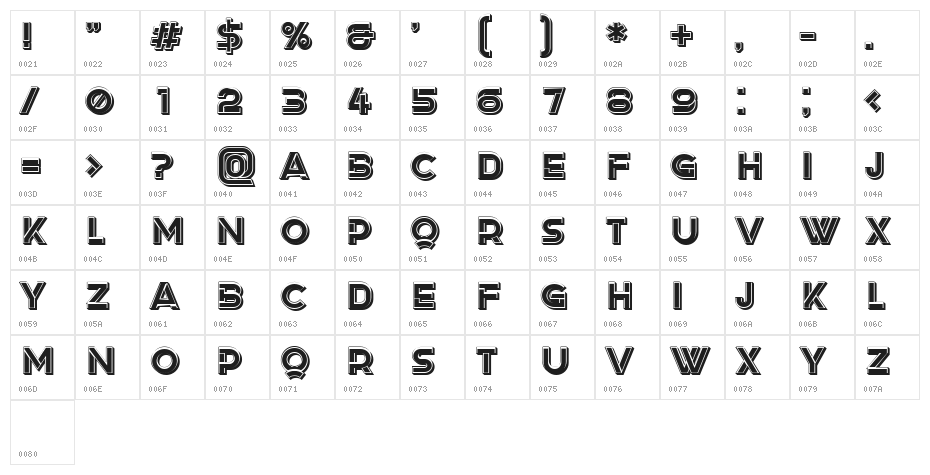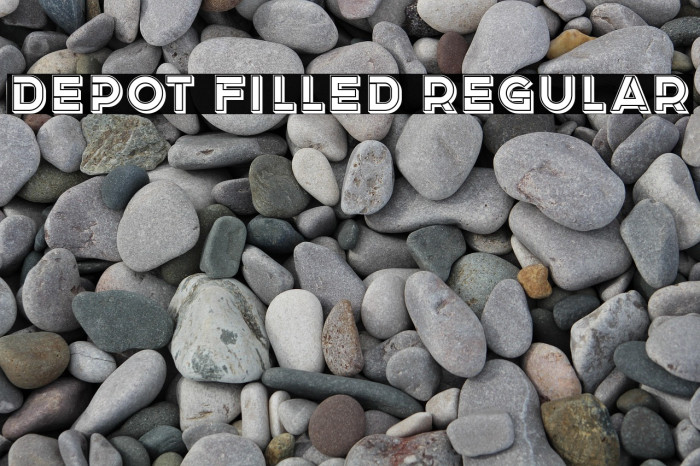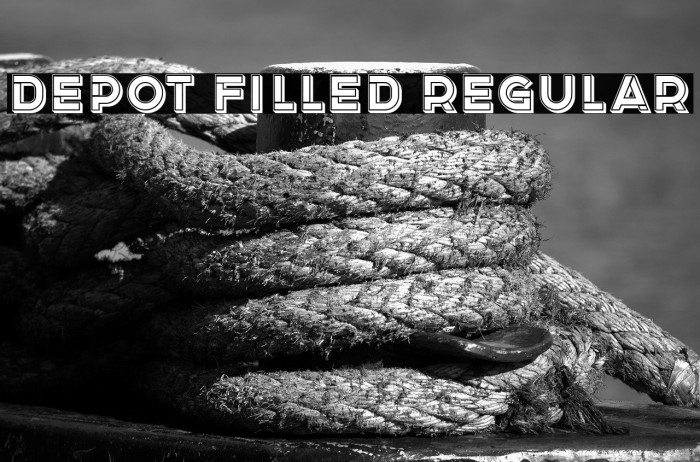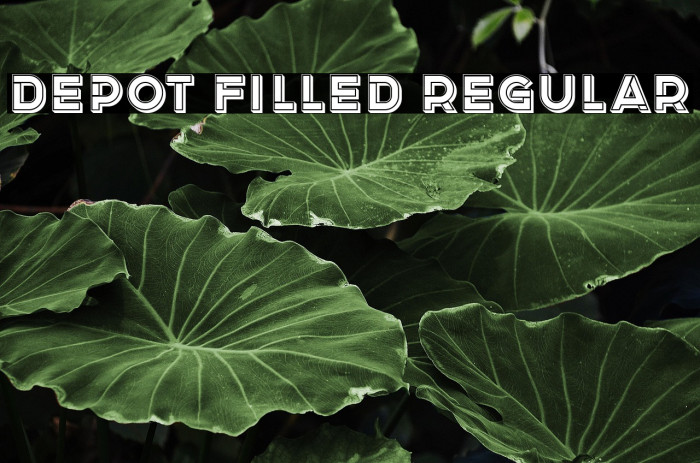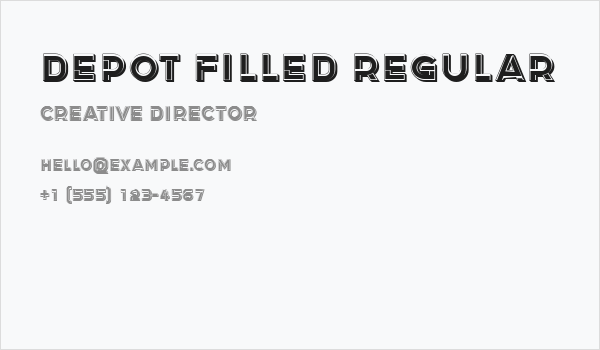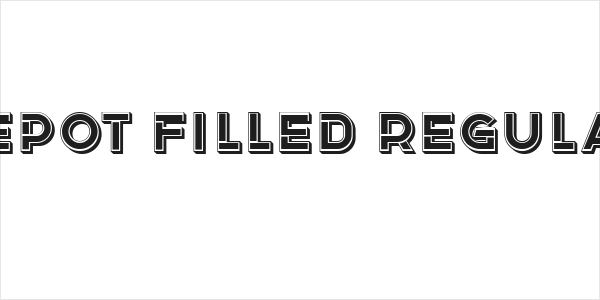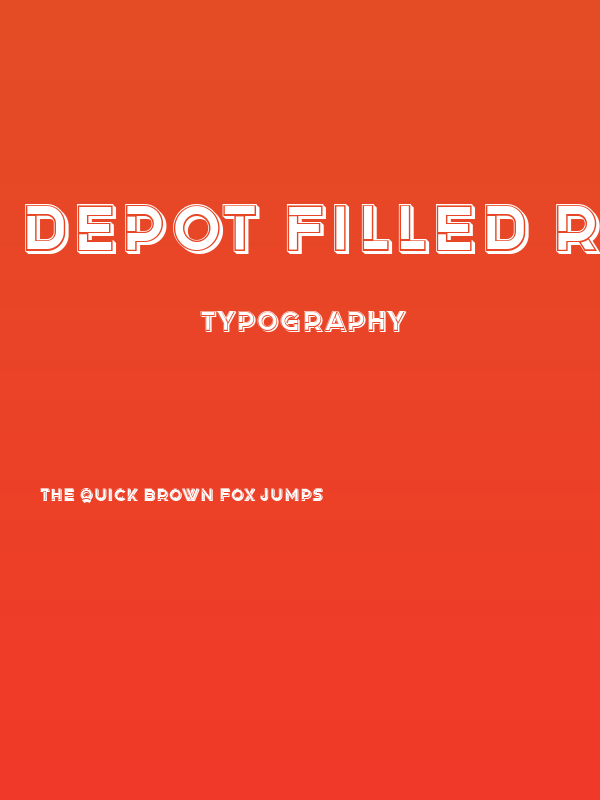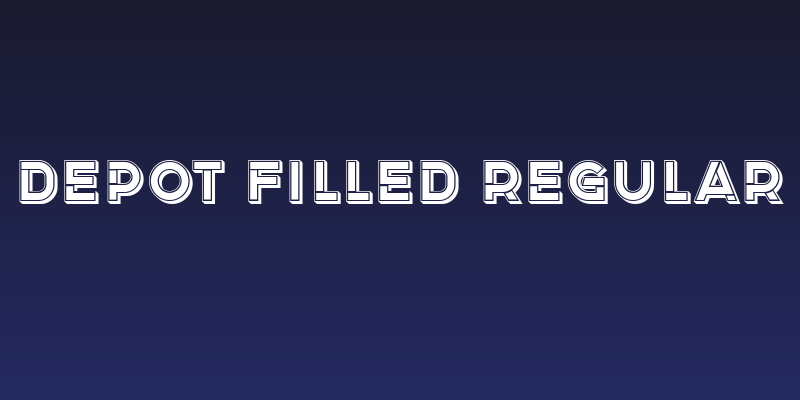
Depot Filled Regular Font
Depot Filled Regular Description
This font features a bold, geometric design with a filled, layered effect that gives it a three-dimensional appearance. The characters are constructed with thick strokes and sharp angles, creating a strong and impactful visual presence. The uppercase and lowercase letters maintain a consistent style, with the lowercase slightly smaller but equally bold. Numbers and special characters follow the same design principles, ensuring uniformity across all glyphs. The font's distinct style makes it suitable for attention-grabbing headlines and titles.
| Proposed Projects | Ideal for posters, signage, branding, and any project requiring a bold, impactful typeface. |